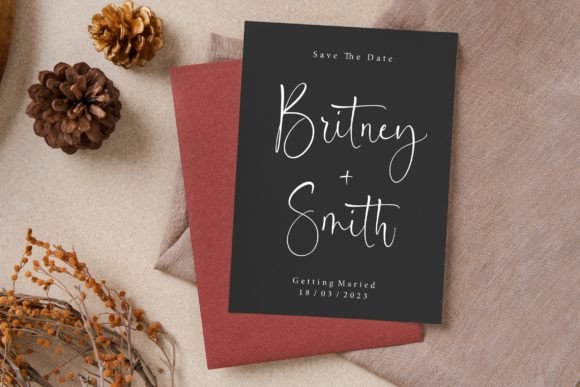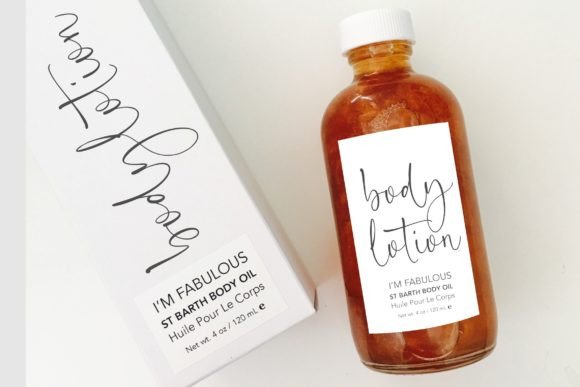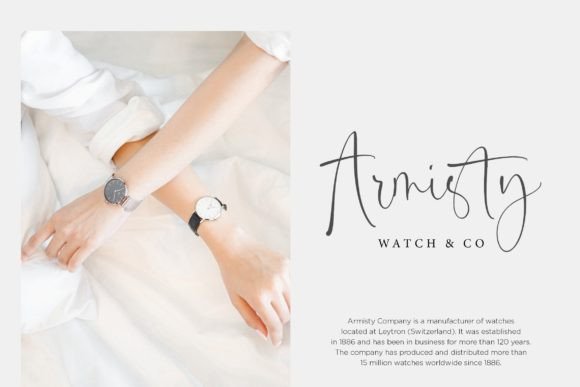
Introduction to Royals Boutique Font
Royals Boutique is a modern handwritten font.
Whether you’re using it for crafts, digital design, presentations, or making greeting cards, this font has the potential to become your favorite go-to font, no matter the occasion This font is PUA encoded, which means you can access all of the glyphs and swashes with ease.
Key Features of Royals Boutique Font
Why Choose Royals Boutique Font?
Royals Boutique Font offers exceptional quality and versatility, making it a valuable addition to your design toolkit. Whether you’re creating for personal projects or commercial use, Royals Boutique Font delivers professional results.